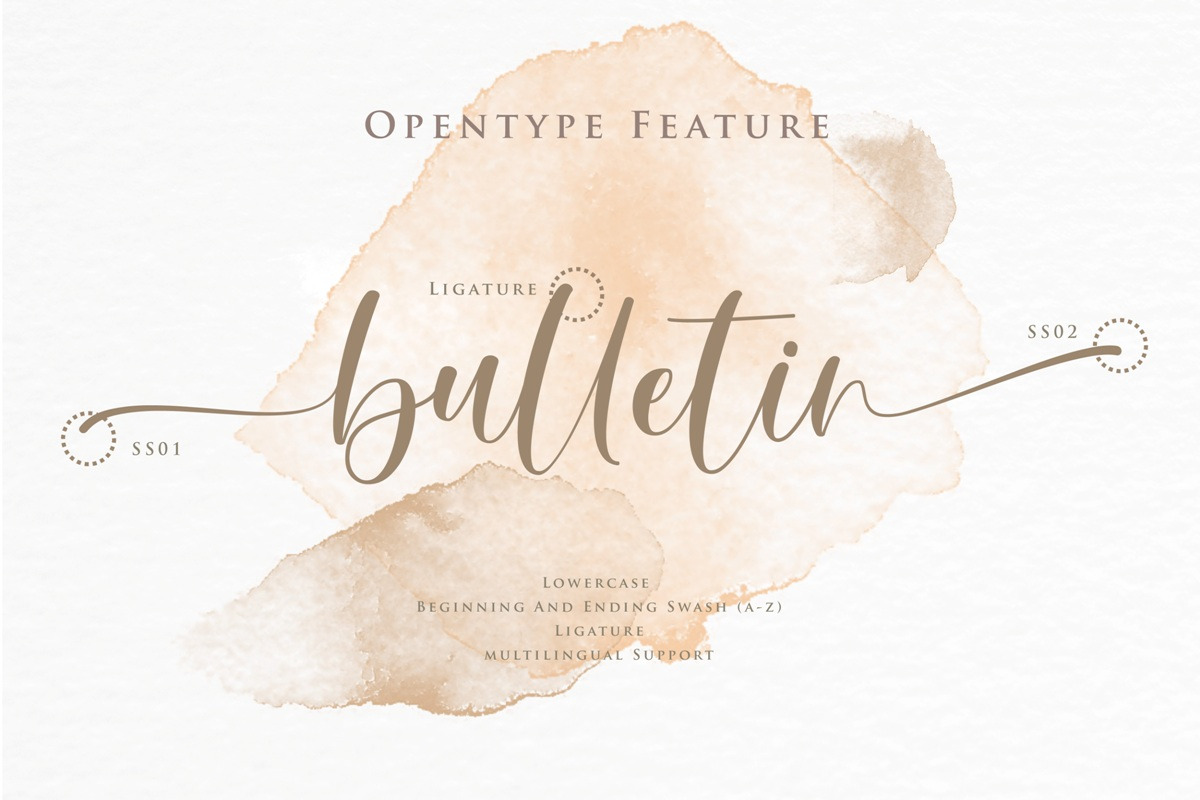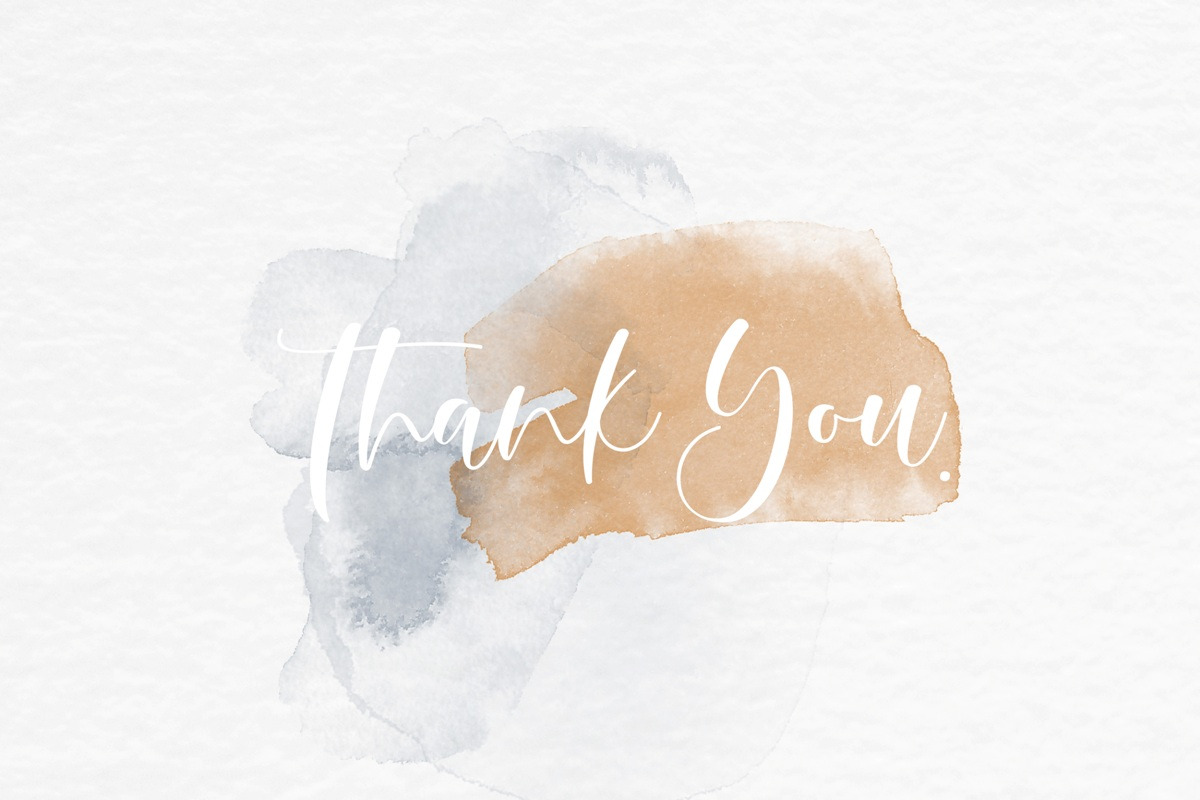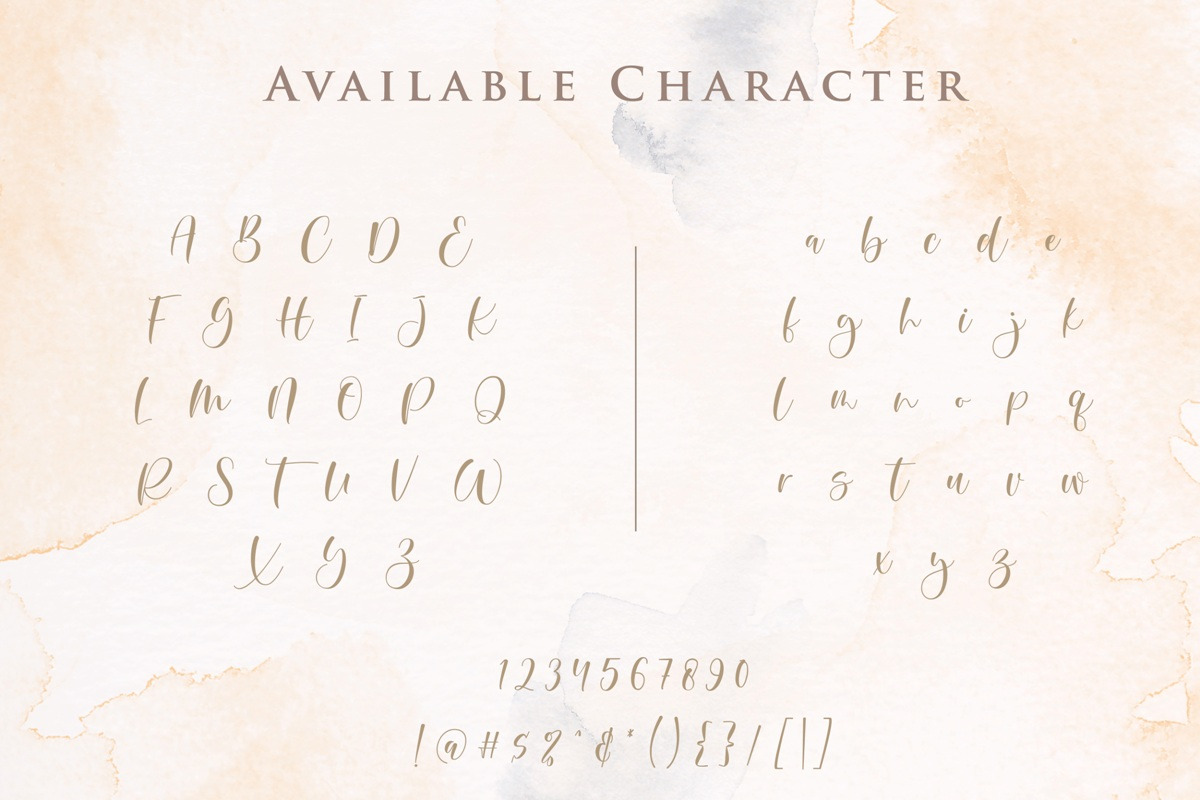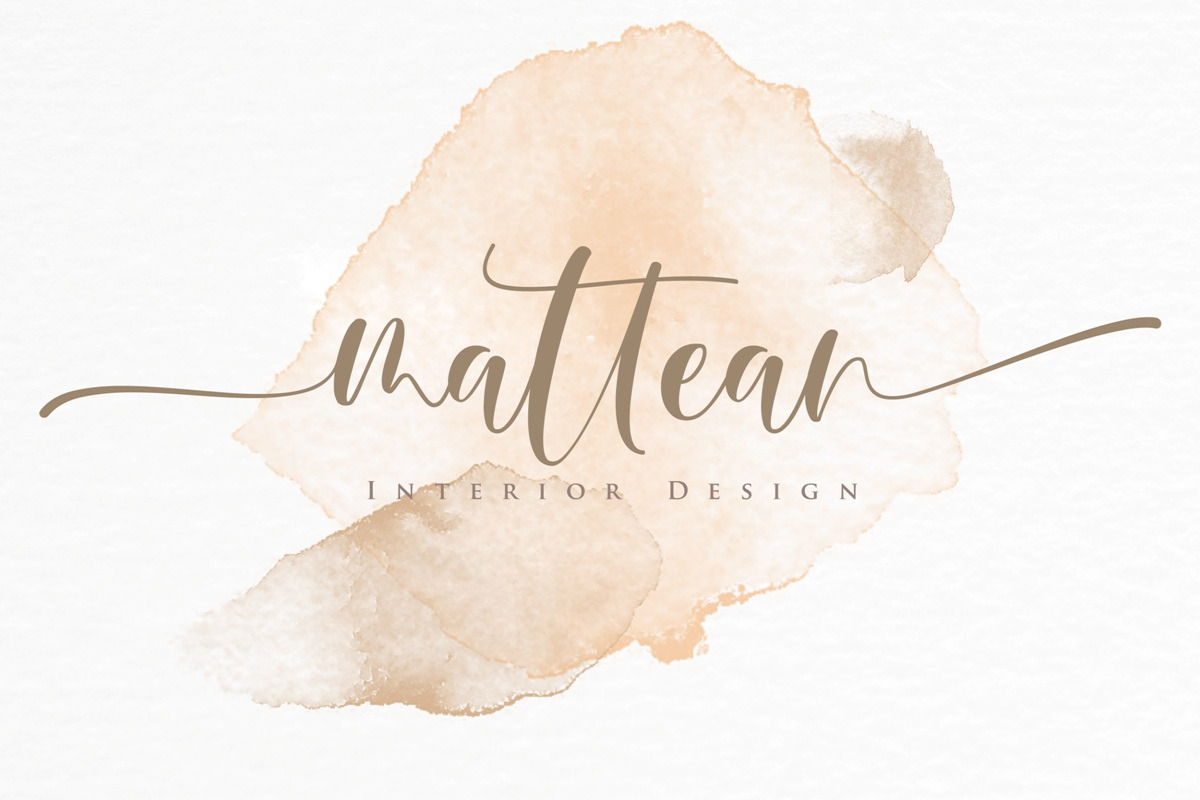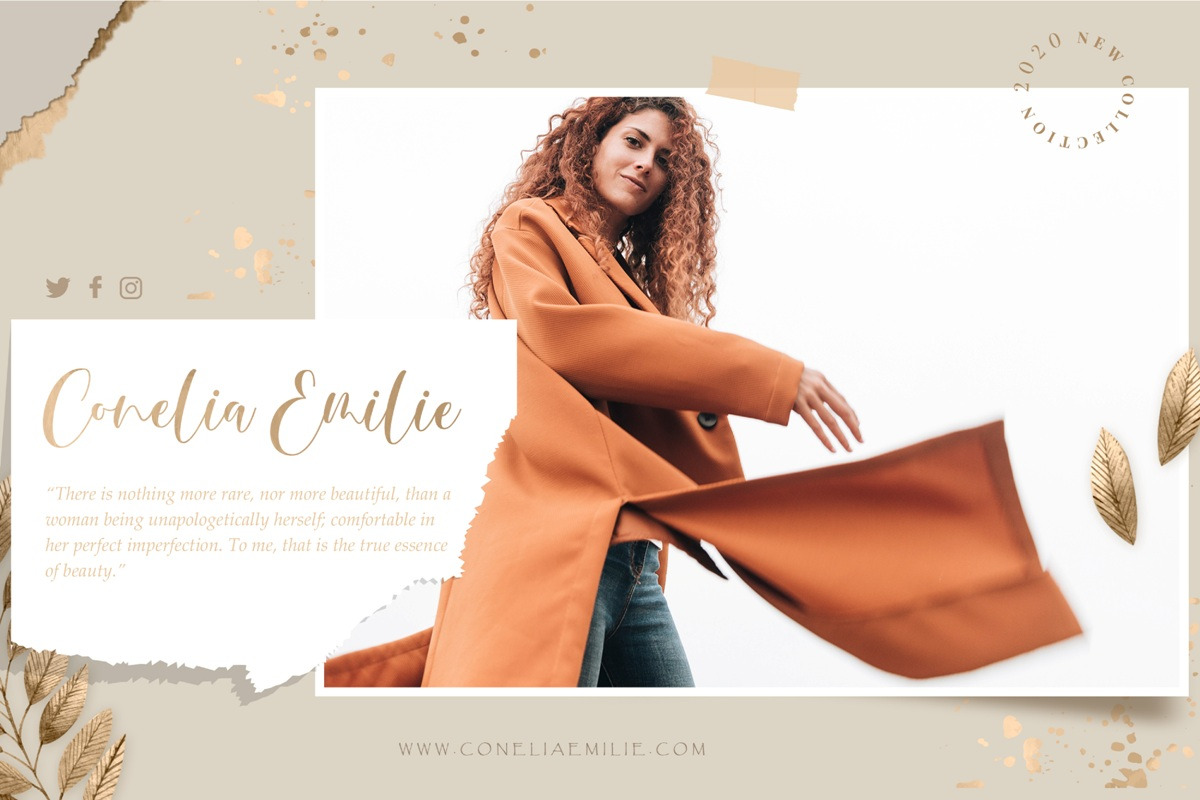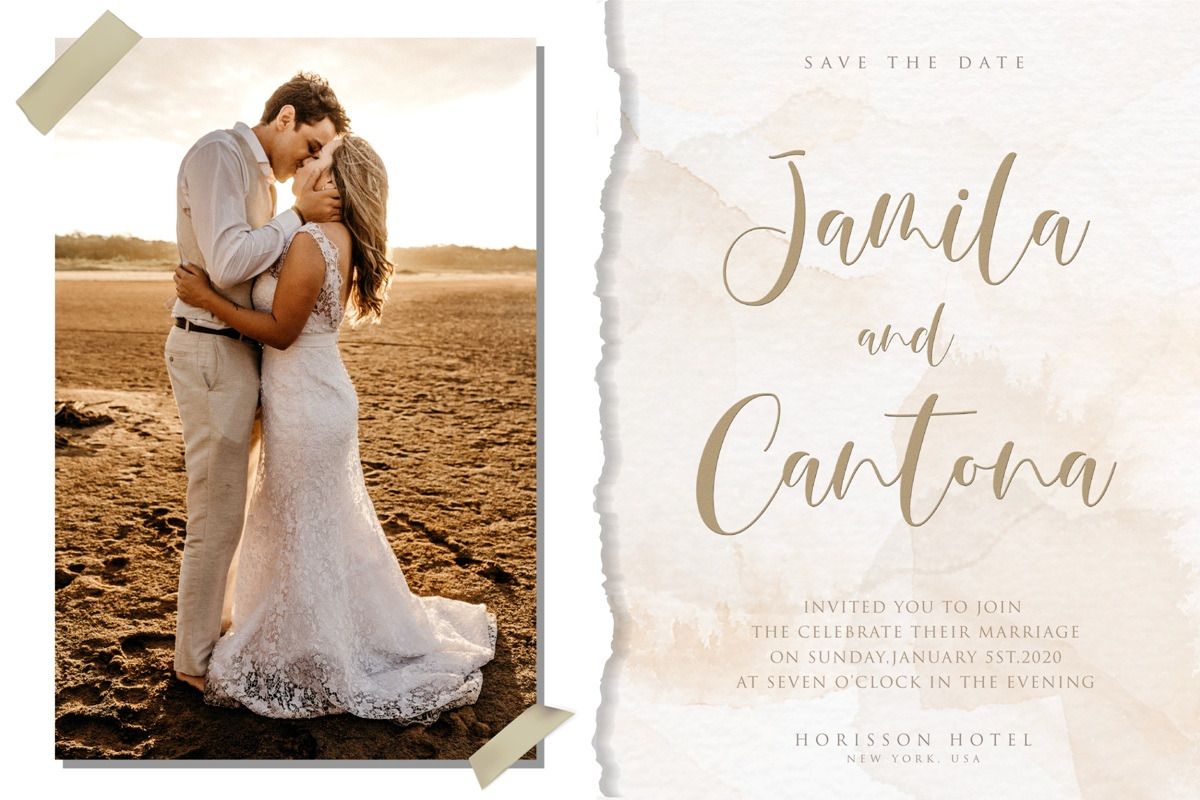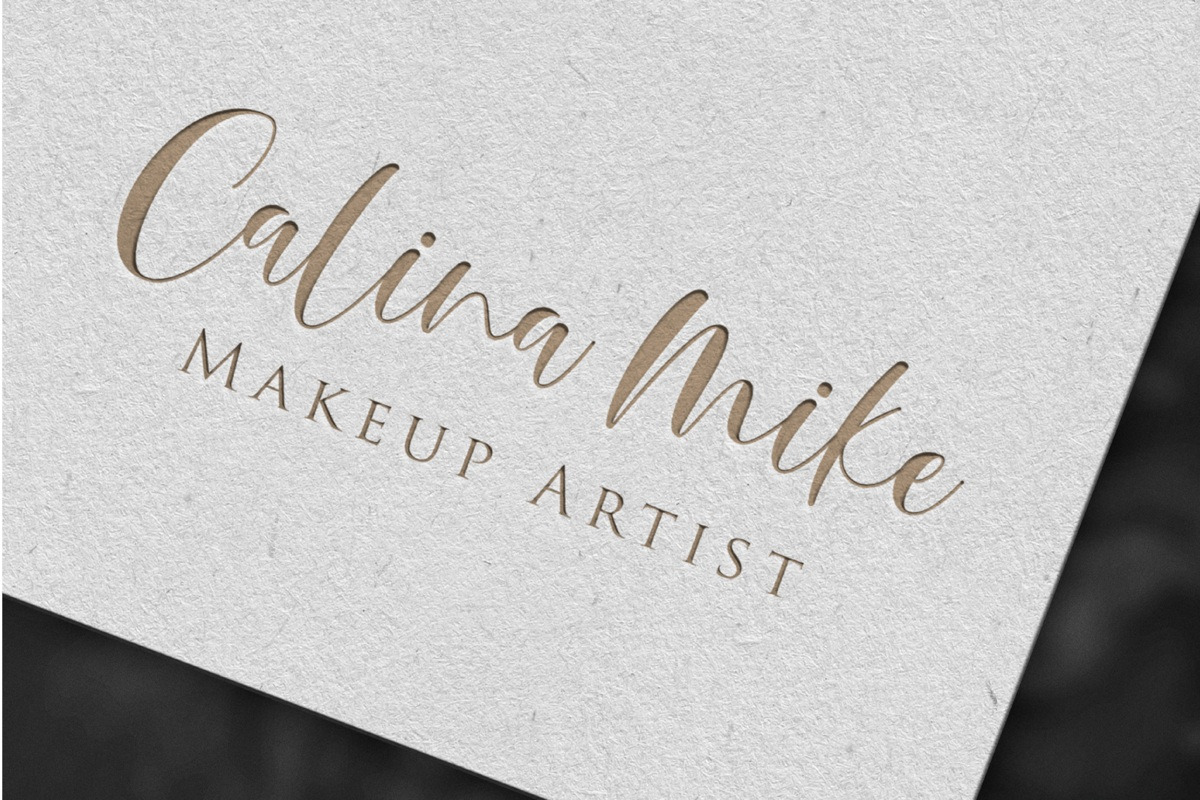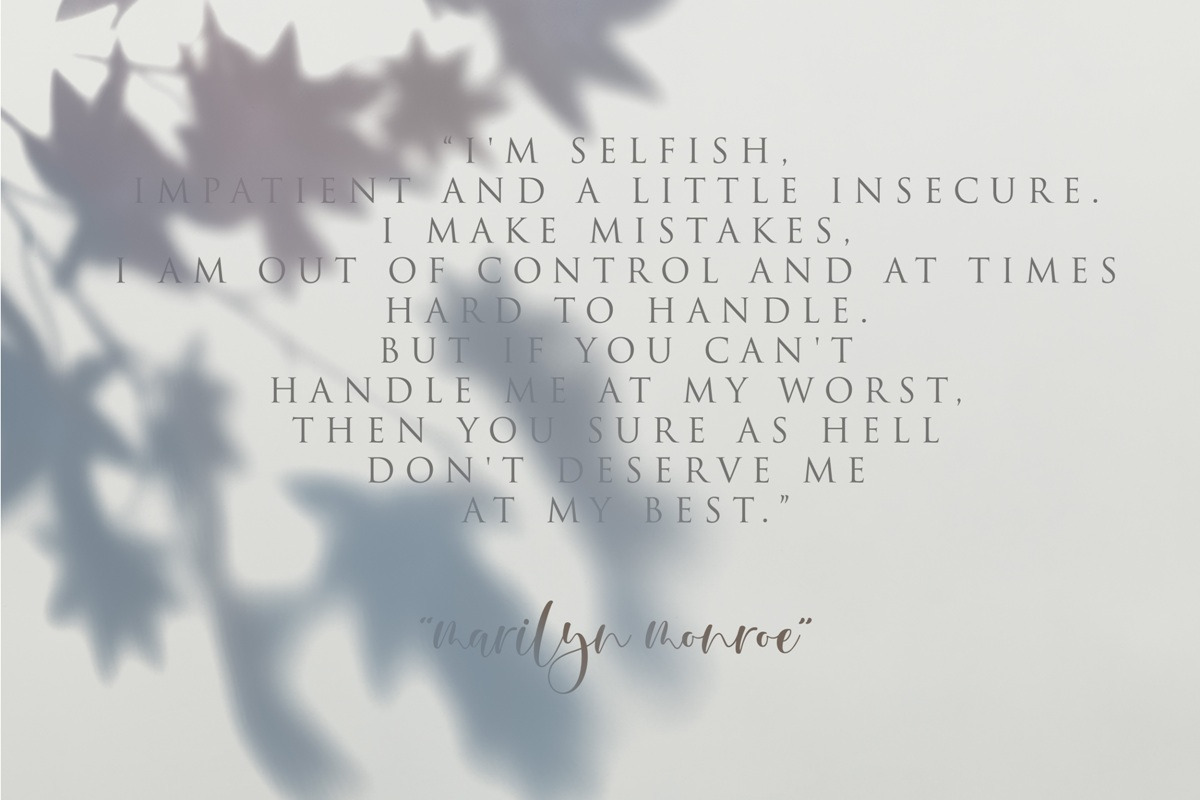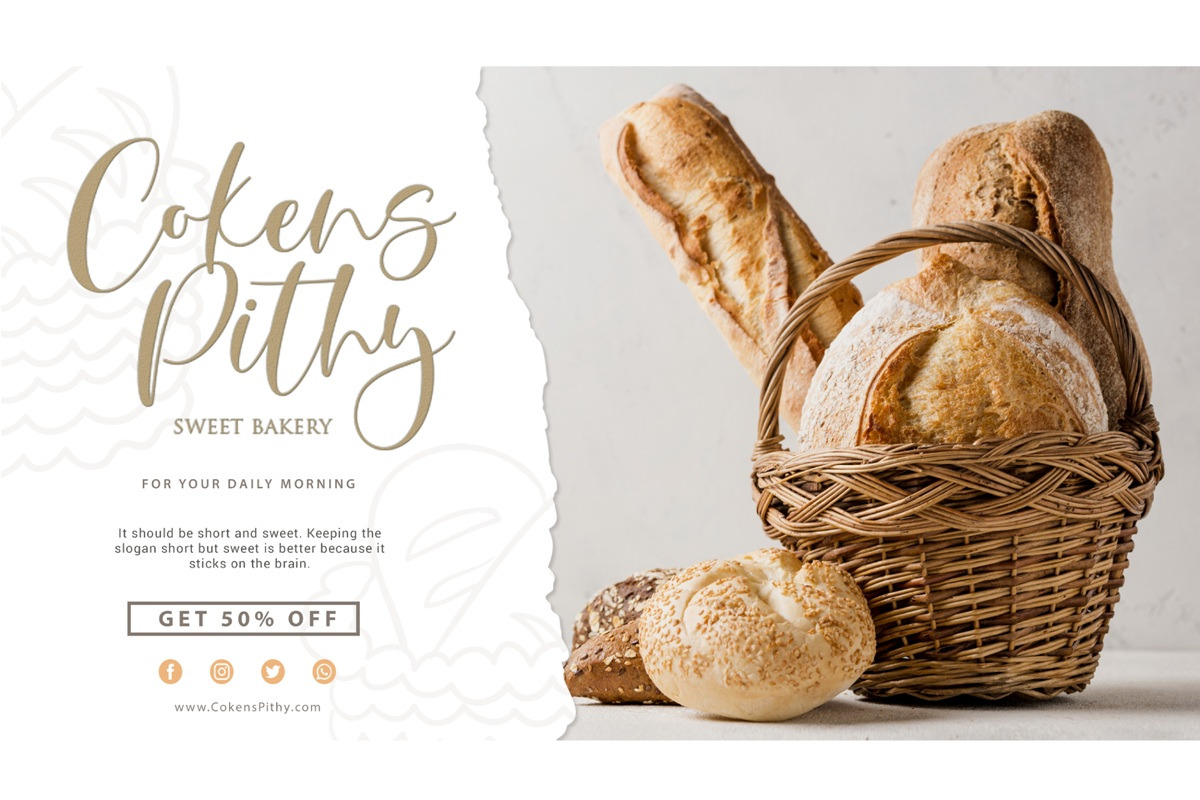
mettalian | Modern Calligraphy
mettalian is an modern calligraphy font that is suitable for branding, signature, wedding invitation, promotion, product packaging,logo,quote, and other needs. This font is modern, simple, but still authentic. You will get full set of lowercase and uppercase letters, numerals and punctuation, multilingual symbols, lowercase beginning and ending swashes, and ligatures.